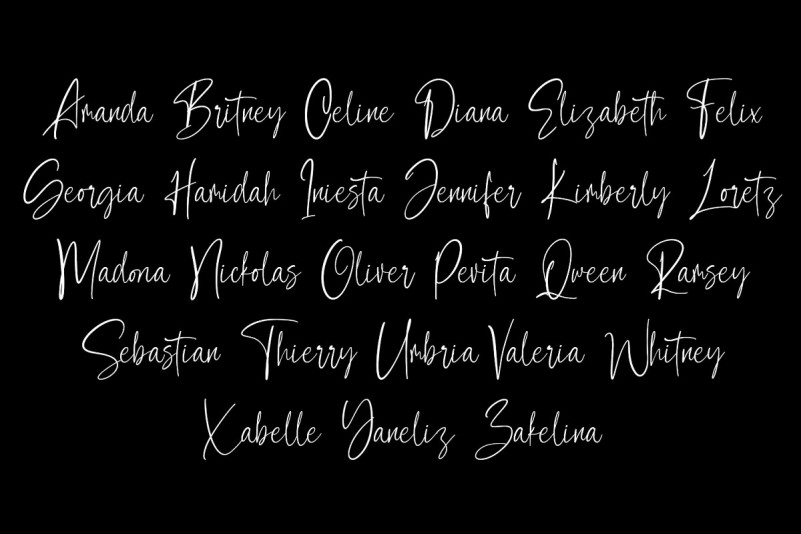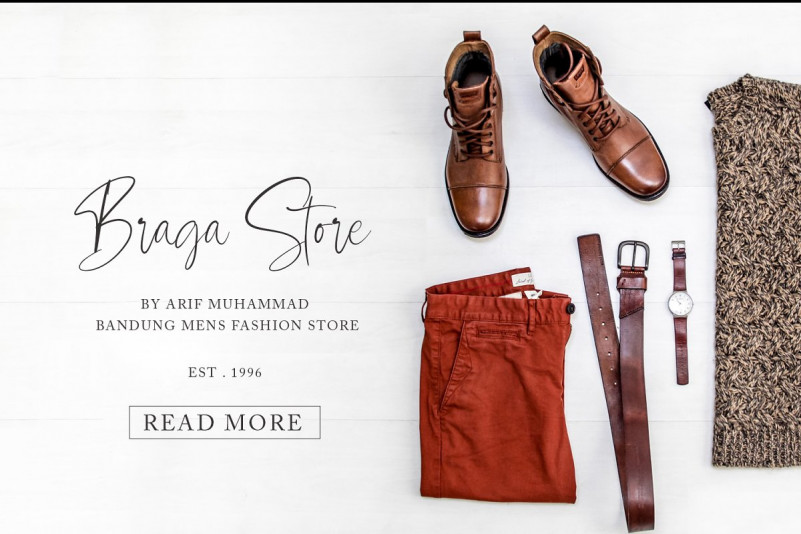
Contributor Calligraphy Font
Hello friend. Contributor Font is a beautiful high fashion calligraphy font. This script font specifically established for beautiful and elegant handwriting looks and perfect also for your special branding. It’s luxurious in a casual and distinctive style that is perfect for your branding design, and will also be very beautiful in your wedding invitations and business cards and especially for your brand name logotype. It’s has beautiful Uppercase and Lowercase, figures and ligature standards that are very realistic